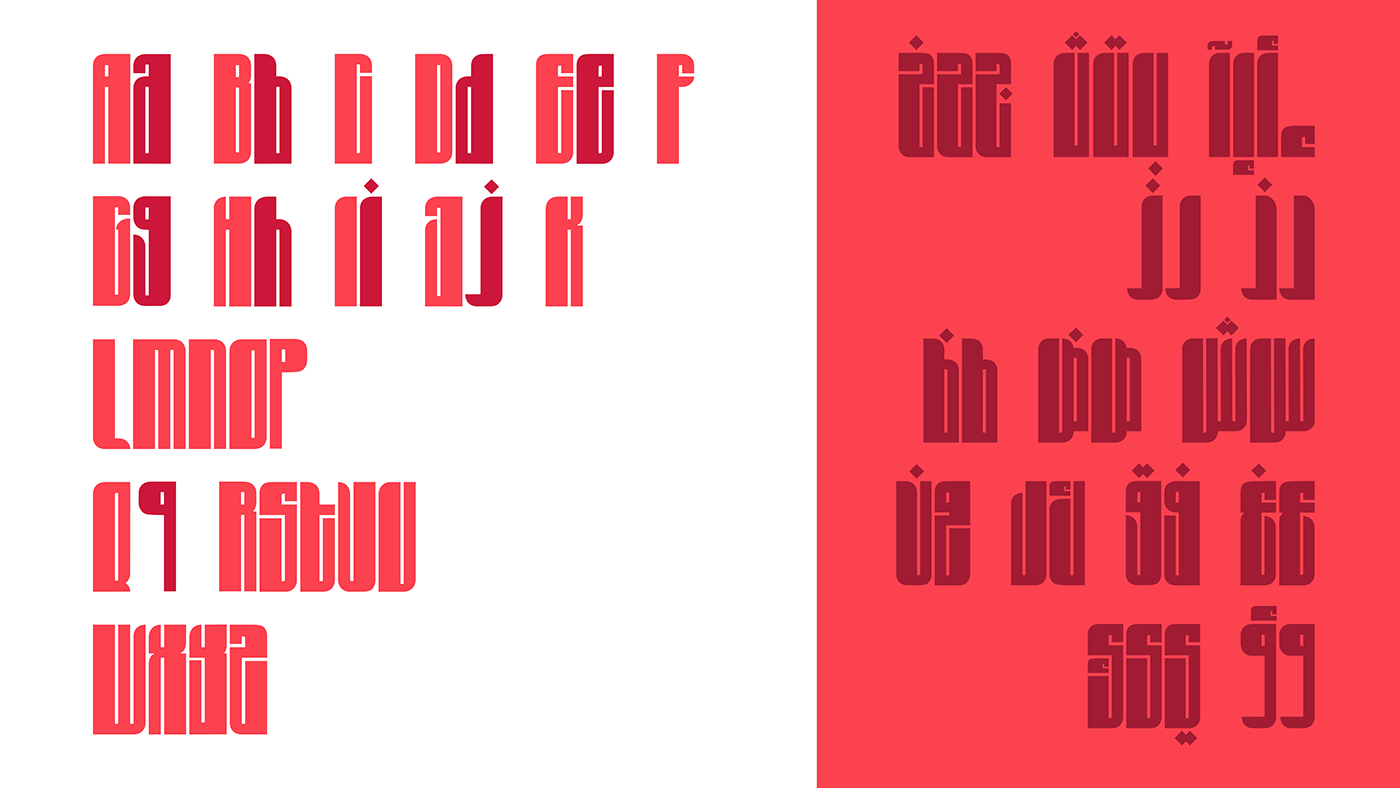
Hela Ho is an English - Arabic display typeface with both thin and heavy geometric structure with contemporary Arabic features that are inspired from the old Eastern Kufic manuscripts and drawn in a modern-day approach.
The type is suitable for modern projects, logos, headlines including print or web.
Each letter structure is designed to create a balance between solid base forms and rounded terminals. The font structure is a mixture of a contrast between thick and thin pen strokes.
This project was inspired by the Lebanese Revolution that started on 22 Oct 2019, a song with the title “Hela Ho” was created by citizens additional to protest signs holding strong messages. A one of a kind peaceful Protest is led by creative funny Lebanese People protesting in their own way.